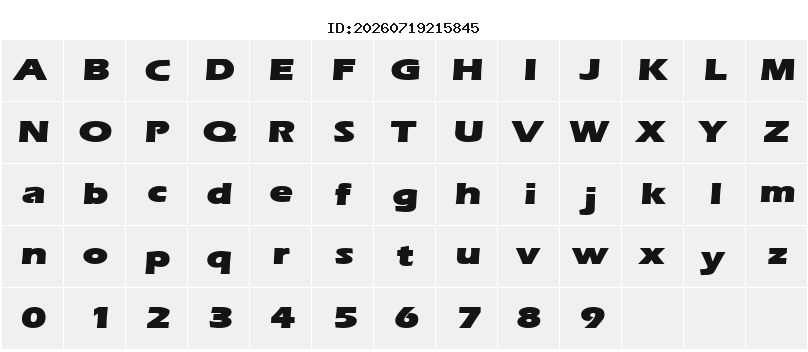
Ergoe-Mild Black Expanded Preview
• Font Name: Ergoe-Mild Black Expanded
• Full Font Name: Ergoe-Mild Black Expanded
About Ergoe-Mild Black Expanded.ttf
Ergoe-Mild Black Expanded.ttf is a modern, elegant sans-serif font designed for ultimate readability and visual harmony. Perfect for branding, headlines, web design, and print materials.